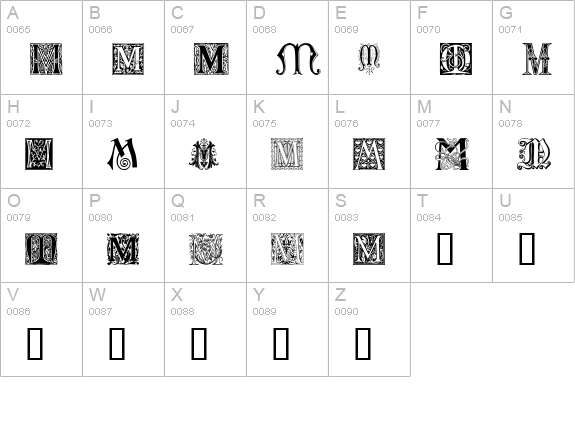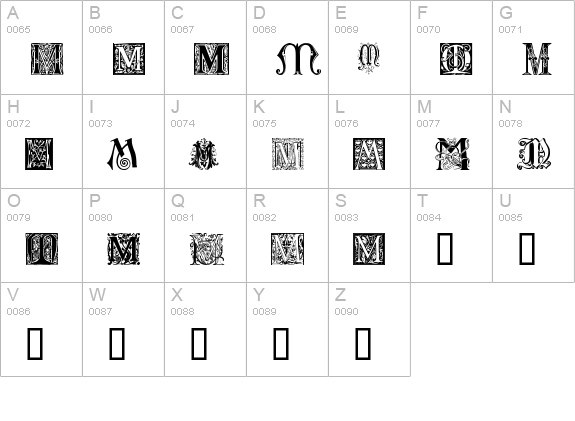
Ornamental Initials M Font Details
Ornamental Initials M font is a stunning and intricate typeface that exudes elegance and sophistication. Featuring ornate details and exquisite flourishes, this font is perfect for adding a touch of luxury to your projects. The intricate design of the capital letter M is sure to make a statement and capture attention. This font is freely available to download at FontsMarket.com, making it easily accessible for all designers and creatives looking to elevate their work with a touch of opulence. Whether you're working on invitations, branding, or any other design project that requires a touch of sophistication, Ornamental Initials M font is the perfect choice. Download it today and add a touch of luxury to your designs.